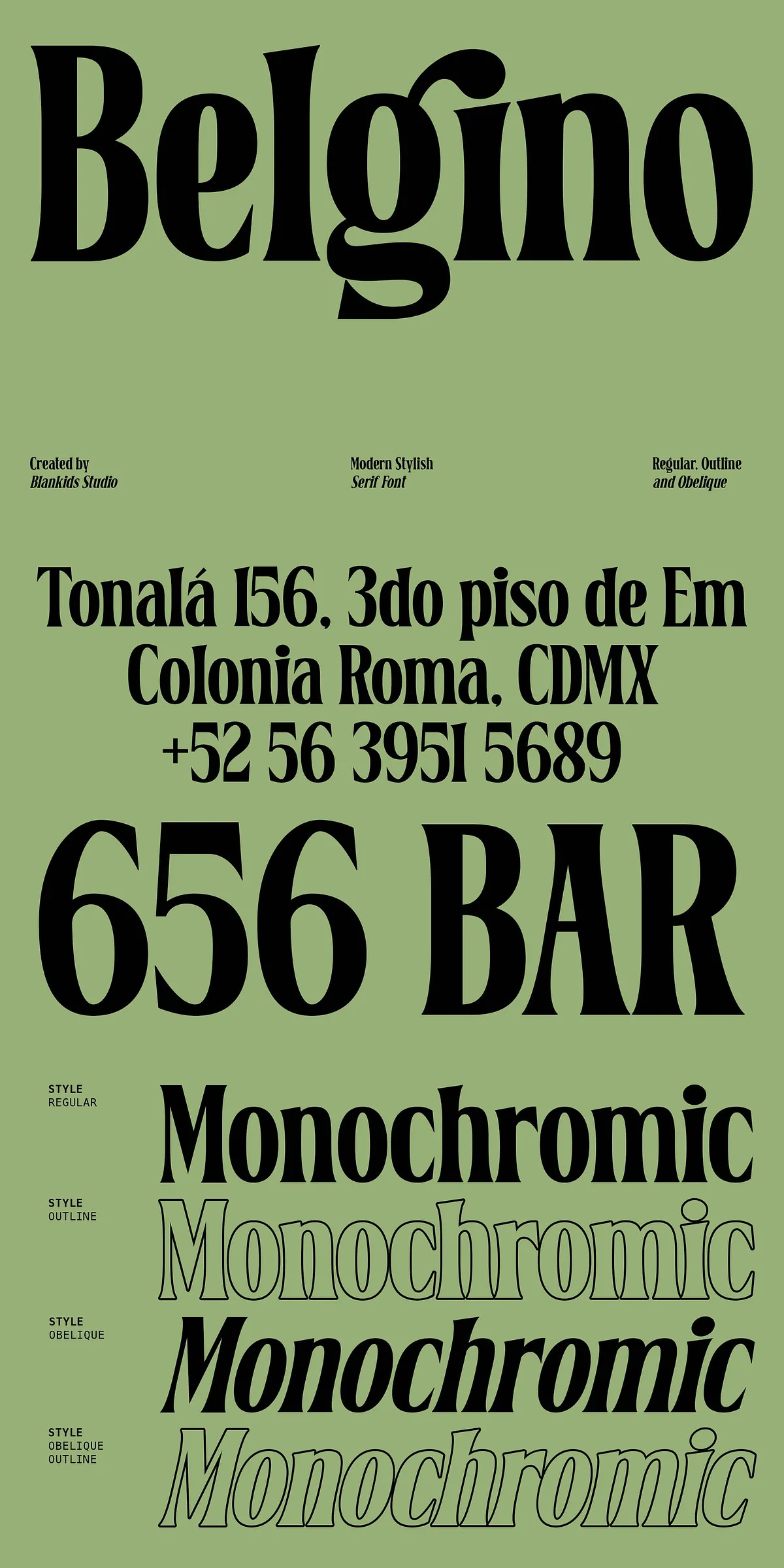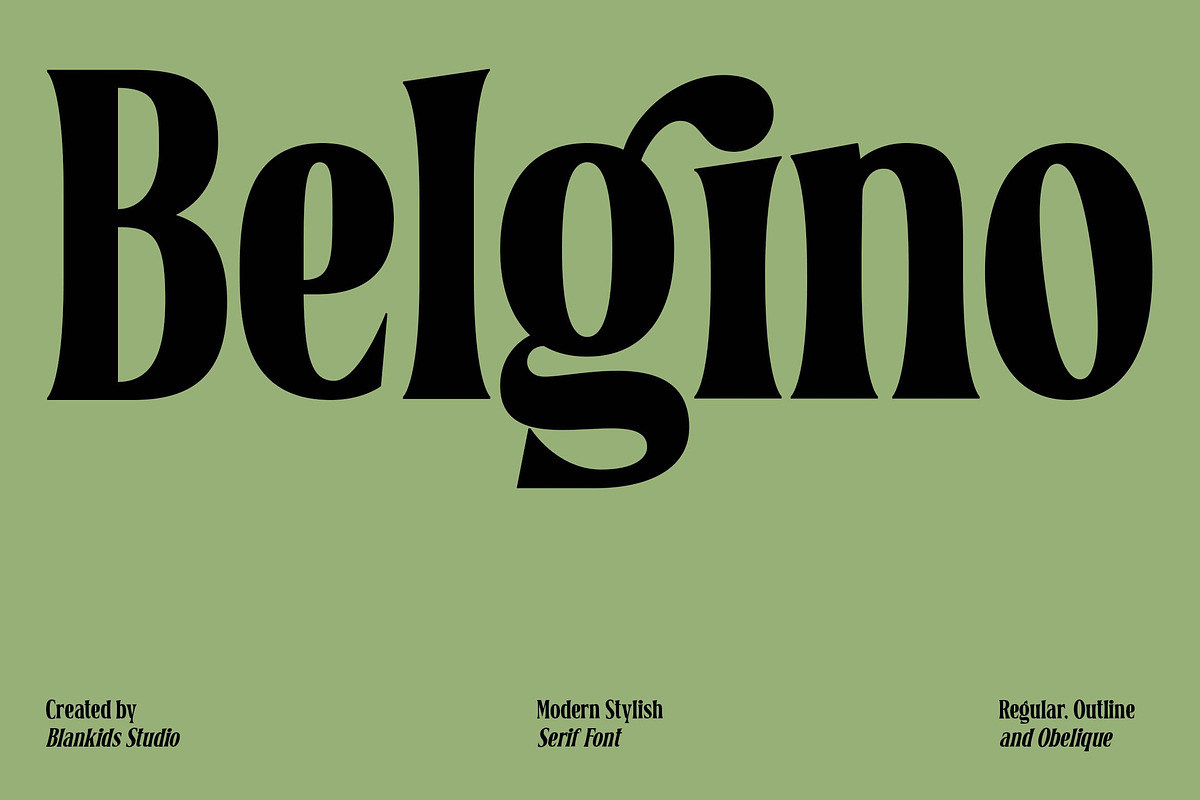
Belgino is a meticulously crafted modern stylish serif font designed to infuse your projects with unparalleled elegance, personality, and high-end character. In an era where visual impact is paramount, Belgino delivers a striking balance between classic sophistication and contemporary style. Its distinctive letterforms, characterized by bold curves and sharp, precise serifs, create a visual language that commands attention while maintaining readability. This typeface is not merely a font; it is a design statement that elevates every word to a level of premium expressiveness and memorability. Whether you are crafting a brand identity or designing a digital interface, Belgino ensures your typography stands out as confident, classy, and undeniably modern.
The Essence of Fashionable Editorial Vibes
What sets Belgino apart is its inherent “fashionable editorial vibe.” It captures the essence of high-end fashion magazines and luxury lifestyle brands, bringing that same level of refinement to your digital and print projects. The dramatic contrast in its letterforms adds depth and texture, making every headline feel significant and every body text readable and engaging. This duality allows designers to create compositions that are both striking and sophisticated. By integrating Belgino into your workflow, you automatically elevate the perceived value of your work, ensuring it resonates with audiences who appreciate quality and attention to detail. The font is engineered to look exceptional in large headlines, serving as the anchor for your visual hierarchy, while its structural integrity holds up well in secondary text.
Why Belgino is the Ideal Choice for Premium Projects
Designers who seek to create work that looks confident, modern, and uncomplicated will find Belgino to be the perfect tool. It removes the guesswork from luxury design, providing a typeface that is inherently stylish without requiring excessive manipulation or complex layout structures. The font carries a natural authority and grace, making it ideal for projects that need to convey trust, exclusivity, and high standards. From restaurant menus that need to entice diners with sophistication to logo designs that must leave a lasting impression, Belgino adapts seamlessly. It brings a refined voice to any canvas, whether you are designing a poster, an advertising campaign, or a wedding invitation suite. The versatility of Belgino means it can transition effortlessly from screen to print, maintaining its sharpness and elegance across all mediums.
Key Applications for Belgino
- Branding and Logo Design: Create memorable, high-end brand identities.
- Editorial Layouts: Enhance magazine covers, articles, and book designs.
- Menu Design: Add a touch of luxury to restaurant, café, and bar menus.
- Packaging: Make product labels and packaging stand out on the shelf.
- Advertising: Craft eye-catching posters and promotional materials.
- Social Media: Elevate brand presence with stylish digital graphics.
- Event Design: Perfect for weddings, galas, and exclusive events.
- Web Headers: Create impactful hero titles and navigation elements.
Embrace the power of Belgino and make your designs bold, elegant, and unforgettable. This font is more than just a tool; it is the key to unlocking a new level of professional excellence in your typographic work. Let Belgino help your typography look premium, professional, and effortlessly stylish in every project you undertake.